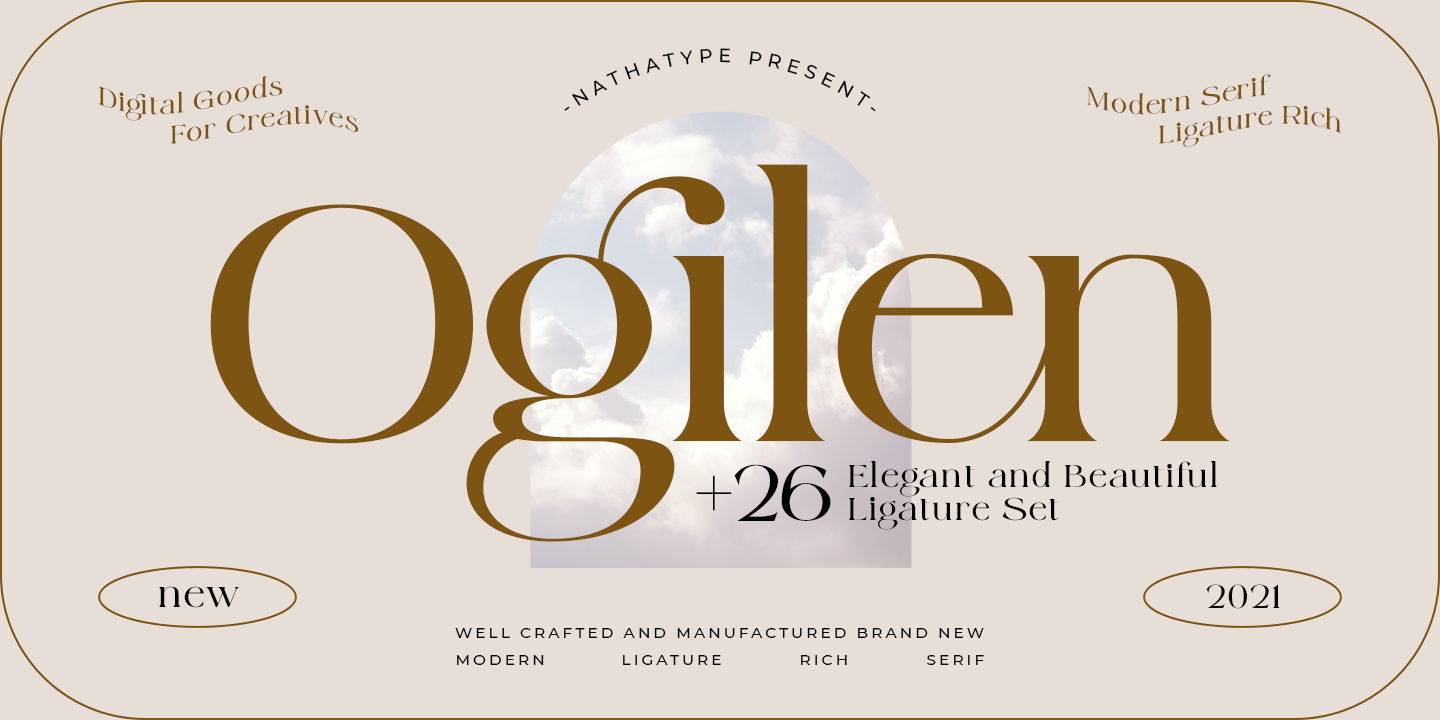
The Ogilen Font excels in various design applications including modern architectural firms, contemporary corporate identities, progressive technology branding, innovative startup communications, sleek product packaging, cutting-edge web typography, refined editorial layouts, sophisticated business materials, dynamic digital interfaces, and forward-thinking commercial projects that demand contemporary elegance and professional sophistication.
What makes the Ogilen Font exciting is its perfect balance of modern functionality with distinctive character through letterforms that demonstrate exceptional versatility while maintaining consistent professional appeal across diverse applications. This typeface embodies contemporary design intelligence through carefully engineered characters that adapt seamlessly to different contexts while preserving their unique visual identity and professional credibility. The font's sophisticated personality makes it perfect for organizations seeking typography that communicates professional competence, design awareness, and adaptable excellence through letterforms that perform exceptionally well in both traditional business applications and innovative digital environments.
The Ogilen Font family typically includes comprehensive weight variations from light to bold, featuring corresponding italic styles and extended character sets optimized for international communication and professional requirements. These family options often include condensed variants for space-efficient applications, specialized symbols for business use, and stylistic alternates that enhance the font's adaptability while maintaining design consistency across various media and professional contexts.
Design professionals and contemporary organizations consistently select Ogilen Font Free Download for projects requiring typography that delivers reliable performance with distinctive professional character. This typeface excels in corporate communications, contemporary branding, and professional design where establishing credibility while maintaining visual sophistication is essential for effective business communication. The font's versatile character makes it particularly effective for technology and consulting applications. Download Ogilen Font Free Download today to access this refined typeface that transforms professional communications with its contemporary sophistication and business reliability, creating compelling design experiences that demonstrate both functional excellence and distinctive personality while maintaining optimal performance across diverse professional applications and international markets.